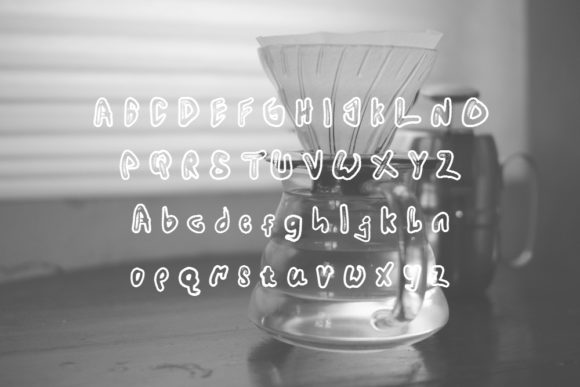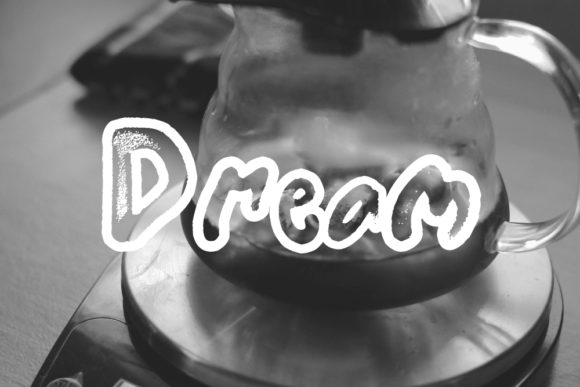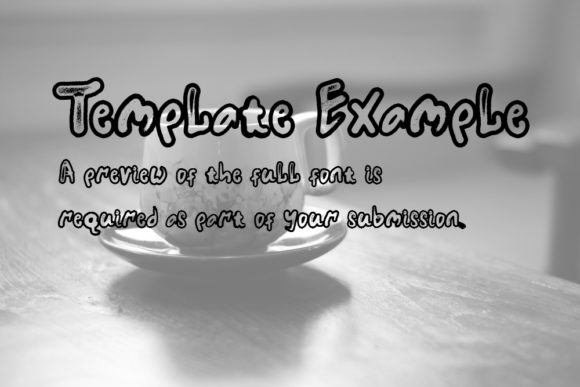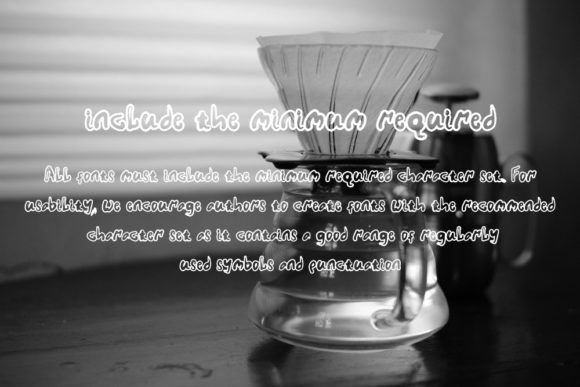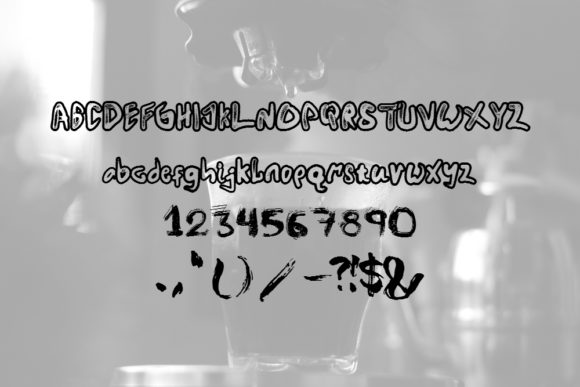
Discover the Quirky Charm of Chadal Font
Have you ever been scribbling away in your notebook, trying to capture the perfect handwritten look for a design project, only to realize your handwriting just isn’t as stylish as you thought? We’ve all been there, and that’s exactly why designers are always on the lookout for the perfect font to add some personality to their work. That’s where the Chadal Font comes in – a clean, quirky, and utterly charming display font created using a brush pen.
Designed specifically with designers in mind, the Chadal Font is the perfect fit for logos, branding, social media, and crafty DIY projects. Its unique blend of elegance and playfulness makes it a valuable addition to any design toolkit. Whether you’re looking to add a touch of whimsy to your latest project or simply want to try something new, the Chadal Font is sure to inspire your creativity.
Key Features of Chadal Font
- Unique Characteristics: This font features a unique blend of traditional and modern elements, with intricate details and subtle nuances that set it apart from other fonts.
Chadal Font Review
I recently had the chance to work with the Chadal Font, and I must say it’s an interesting choice for designers. Let’s break down what I liked and didn’t like.
- Unique aesthetic: The Chadal Font has a distinctive, quirky feel that can be a great addition to designs that need a bit of personality.
- High contrast: The bold lines and contrasting strokes make it easy to read, even at smaller font sizes.
- Customization options: Chadal Font offers a range of weights and styles, allowing designers to tailor the font to their specific needs.
- Overuse potential: The Chadal Font’s quirky charm can quickly become overwhelming if used excessively.
- Lack of versatility: While the font works well in certain contexts, it may not be the best choice for more formal or traditional designs.
While the Chadal Font has its limitations, I appreciate its unique character and the options it provides for designers. It’s a great choice for projects that need a bit of personality and flair, but may not be the best fit for more conservative designs. Overall, it’s a solid addition to any designer’s toolkit.
Tips for Getting the Most Out of Chadal Font
Use Chadal font for titles, headings, and emphasis.
Avoid using it for large blocks of text, as it can be overwhelming.
Combine Chadal font with other fonts to create visually appealing designs.
Use Chadal font for:
Branding and logos
Marketing materials (brochures, flyers, etc.)
Social media graphics
Web design and development